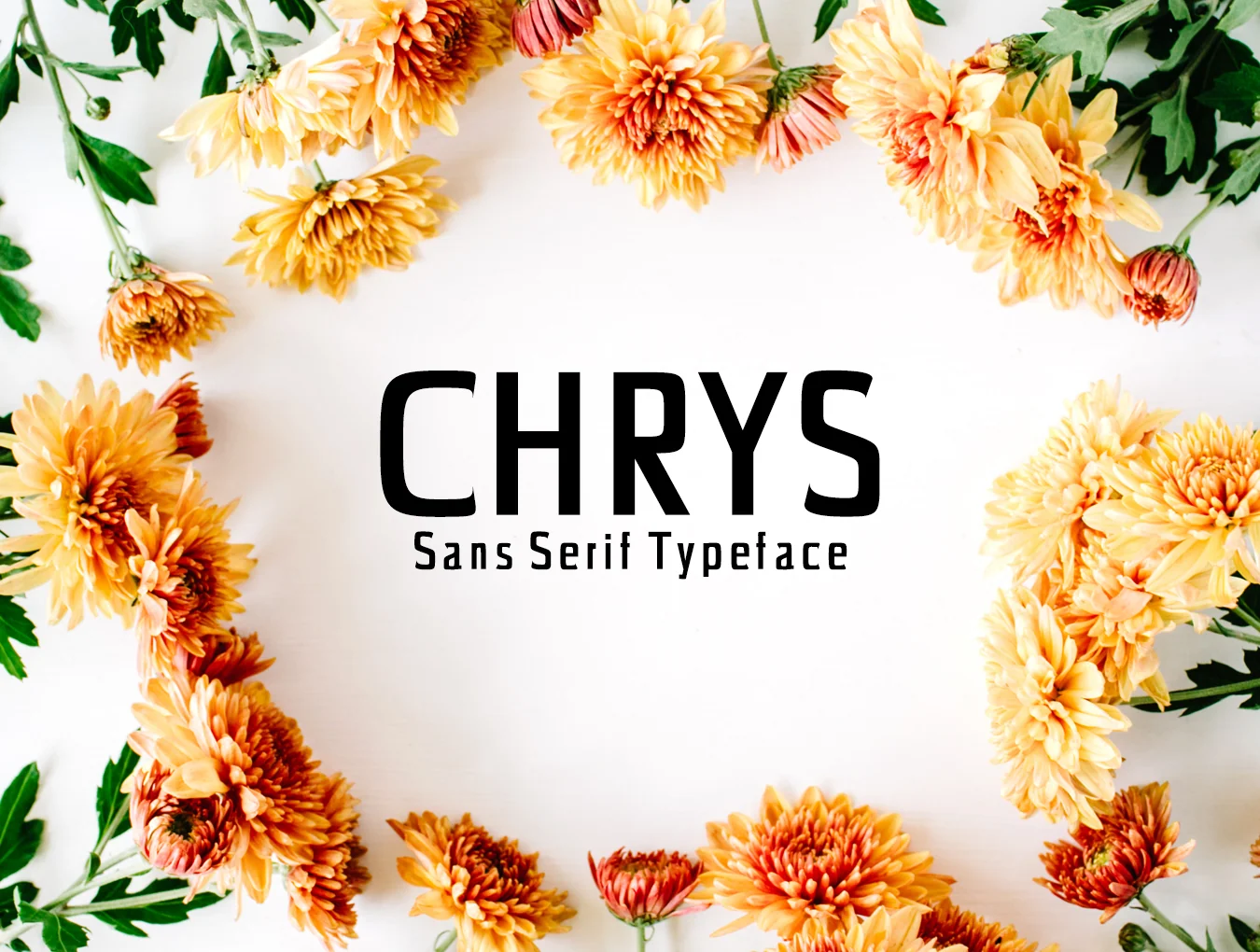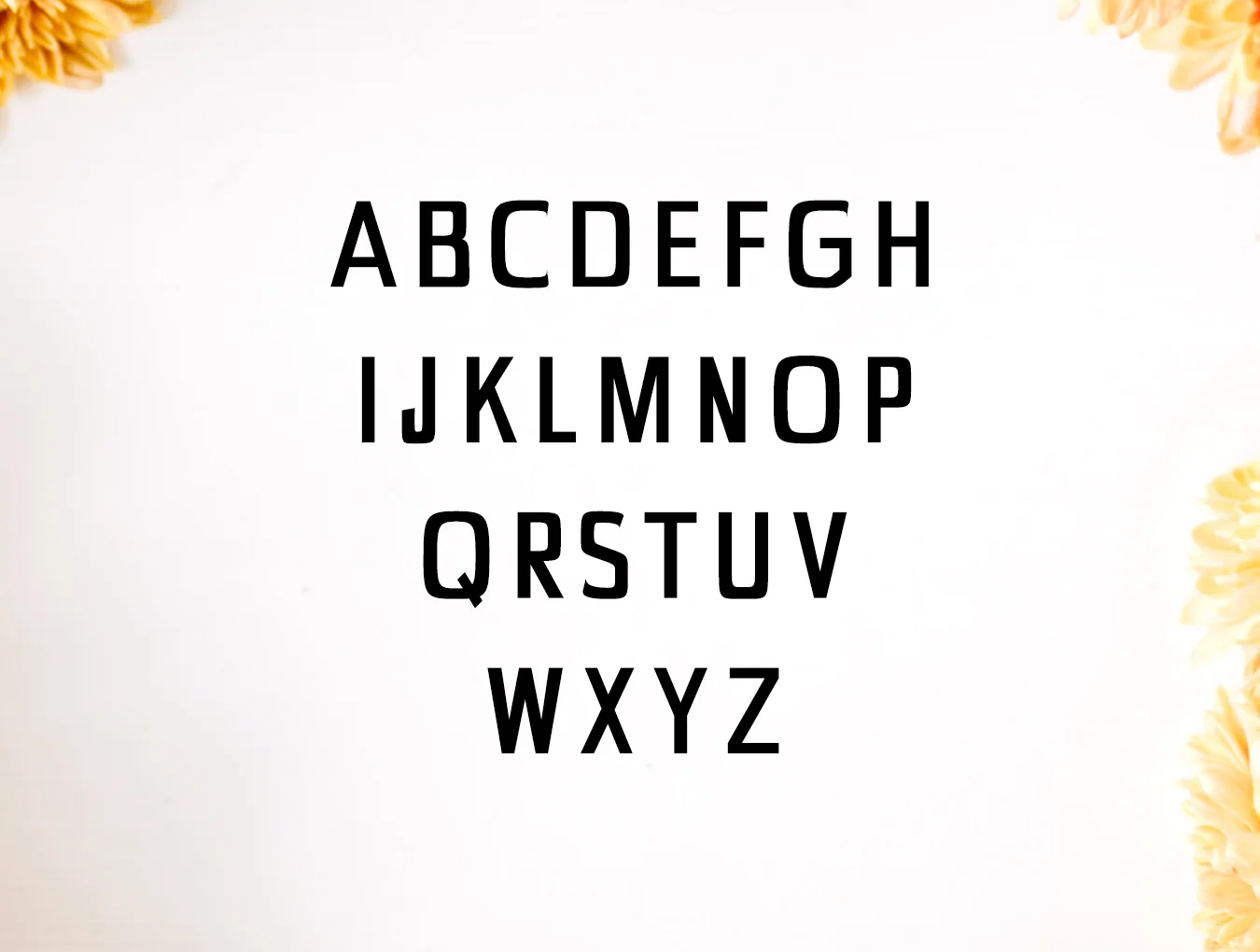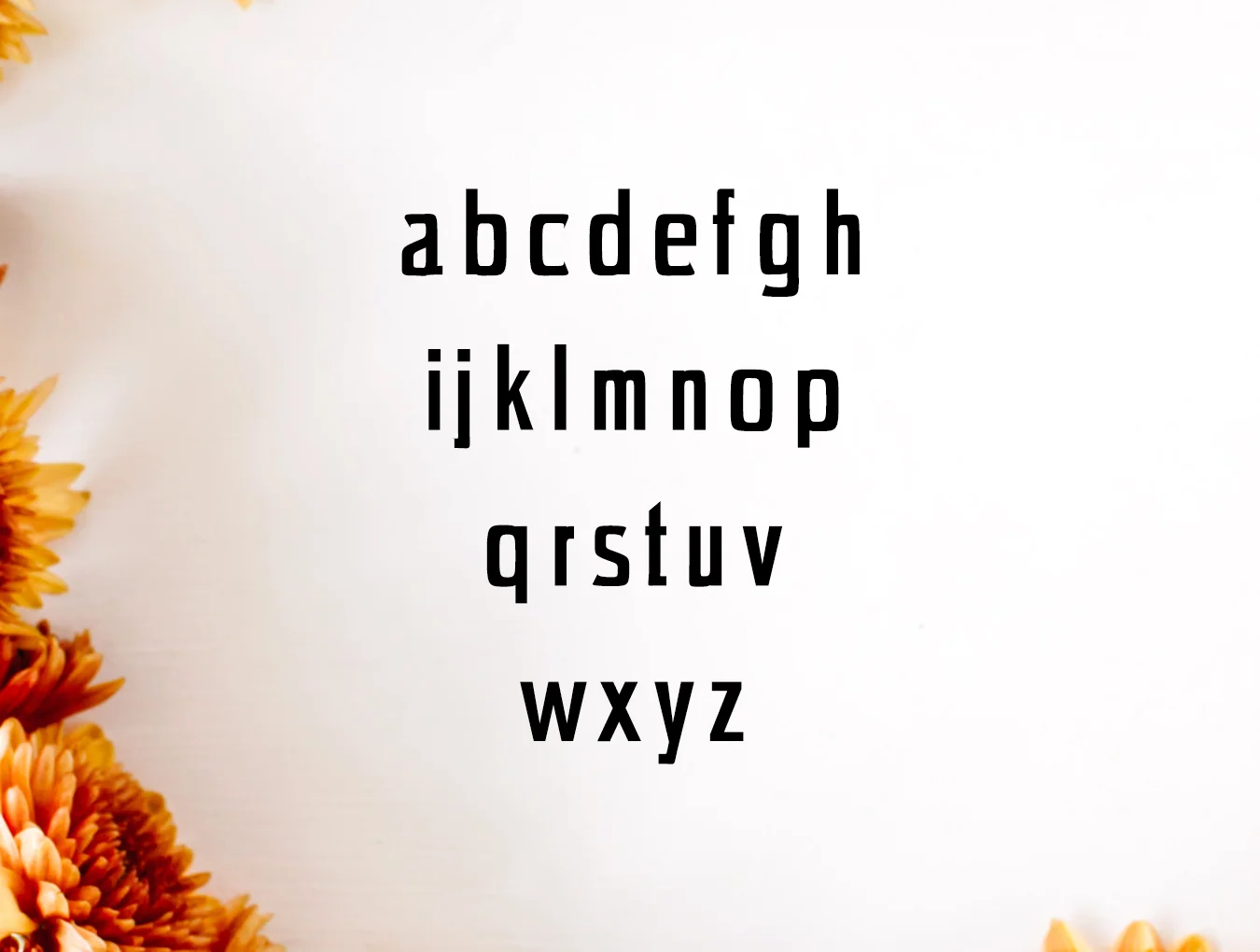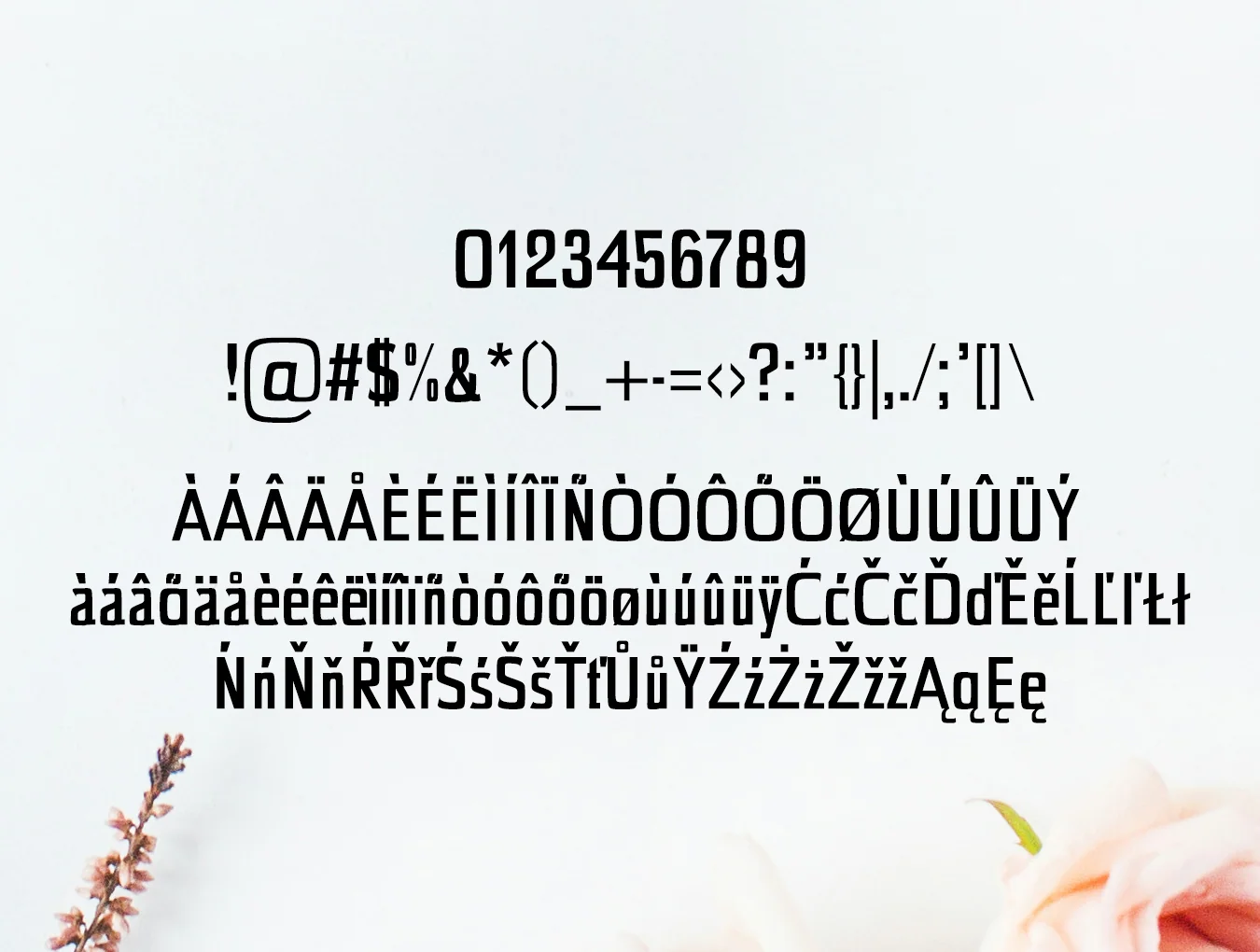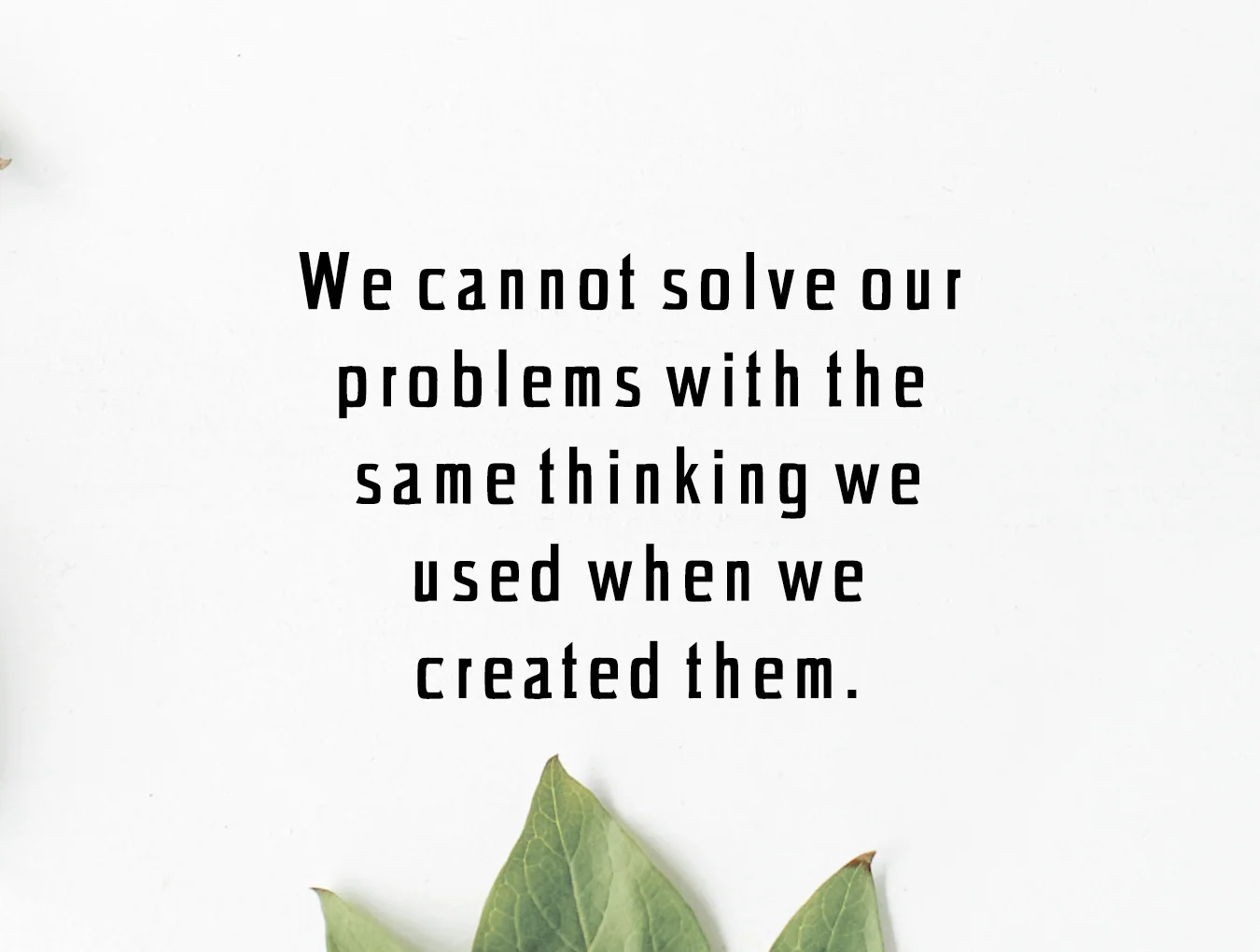
Chrys Sans Serif Typeface
Chrys Sans Serif 4 Font Family Collection
Sans-serif font style
Set of 294 characters
Light and regular styles
Thin weights with distorted forms
Sans-serif font style
Set of 294 characters
Light and regular styles
Thin weights with distorted forms
Chrys Sans Serif Typeface is a clean, minimalist sans serif family with 4 weights and a fresh modern style. Ideal for elegant logos, headings, websites, and branding. Use it in all caps with generous spacing for a refined look, or mix uppercase and lowercase for a timeless result.